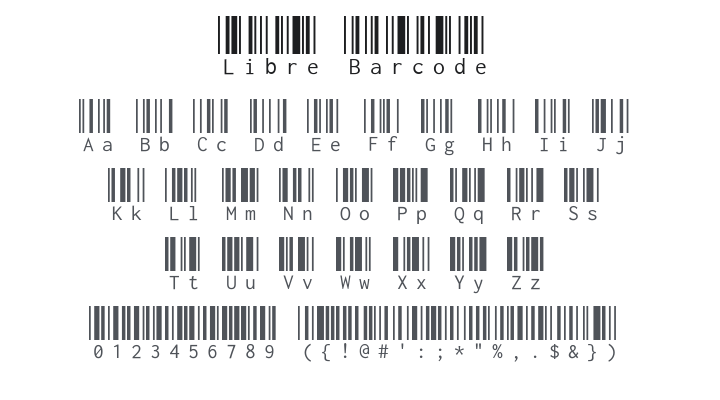
Libre Barcode Font Family
by Lasse Fister
Libre Barcode Font Family
About Libre Barcode
Libre Barcode fonts enable you to write barcodes in the Code 39, Code 128 and EAN-13/UPC-12 formats, with or without text below the code. A number of fonts are available.